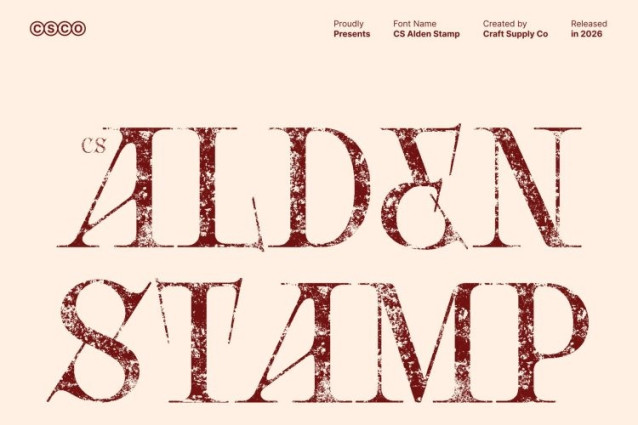
CS Alden Stamp Font
CS Alden Stamp Font This is a modern display serif typeface defined by thin, elongated, and tapered strokes that express refined luxury. Its slender proportions and elegant construction create a contemporary visual presence, while the subtle stamp effect adds depth and character without diminishing its clean aesthetic.
Elegant Forms with Textured Sophistication
The long, refined strokes and sharp serifs deliver a sense of elegance and modern confidence. Enhanced with a stamped texture, the font gains an artistic, slightly vintage nuance that softens its precision, resulting in a balanced blend of sophistication and expressive character.
Clean Precision with Classic Influence
This font emphasizes clarity through its structured design and streamlined forms. The stamp finish introduces organic imperfections that add warmth and visual interest, merging classical serif charm with a modern display sensibility. This combination makes the font feel both polished and distinctive.
Ideal for Luxury and Contemporary Design
Perfect for luxury branding, editorial layouts, packaging, fashion campaigns, and premium marketing materials, this font provides a graceful yet impactful typographic voice. It is an excellent choice for designers seeking a modern display serif font that communicates elegance, professionalism, and refined texture.